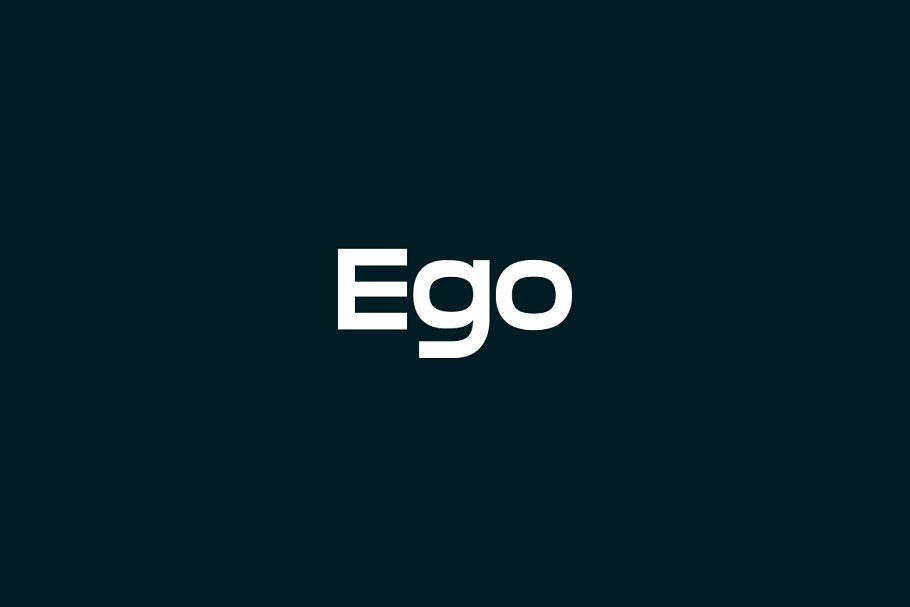
Ego Font
Ego Font is perfect for personal branding consultancies, luxury lifestyle magazines, high-end fashion campaigns, exclusive membership clubs, premium coaching services, and sophisticated entertainment venues. Its confident character makes it ideal for celebrity management agencies, luxury real estate firms, upscale nightclubs, personal development brands, executive leadership programs, and any project requiring bold self-assurance with unapologetic confidence and premium lifestyle appeal.
This font is exciting because it embodies the powerful psychology of confidence and self-assurance while delivering exceptional functionality for premium personal branding communications. The boldly crafted letterforms project strength, ambition, and unwavering self-belief, creating typography that resonates with audiences who value personal excellence, leadership, and the courage to stand out in competitive environments with authentic confidence and professional distinction.
The Ego Font family typically includes Light, Regular, Medium, and Bold weights with confident alternates, leadership-inspired ligatures, and empowering elements that enhance its assertive personality. This comprehensive collection provides designers with powerful tools for creating distinctive brand systems that maintain authentic confidence while offering flexibility for various premium applications requiring personal authority and sophisticated market positioning.
Whether you're developing identity systems for executive coaching firms, creating materials for luxury lifestyle brands, or designing promotional content for premium personal services, Ego Font Free Download delivers the confident authority and premium sophistication that connects with ambitious audiences worldwide. Its commanding presence ensures memorable brand recognition across digital platforms and print materials, making it perfect for websites, mobile applications, and personal branding campaigns that celebrate individual excellence, leadership confidence, and the transformative power of authentic self-assurance with contemporary premium appeal and uncompromising personal standards.